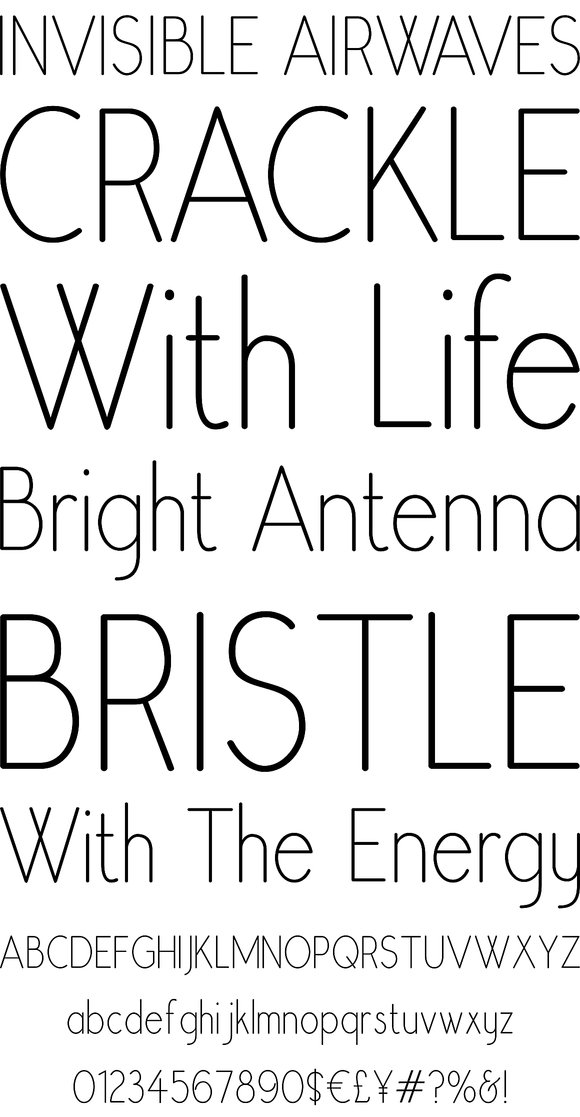
Register Sans
Foundry: Breaking The Norm
Register Sans is a typestyle family inspired by the draft letter handwriting samples from old Speedball booklets, with a little variation for a more friendly flair.
Reminiscent of the basic lettering templates from elementary school days, this friendly, clean, and highly readable text face offersa range of use with it's various weight and width styles.